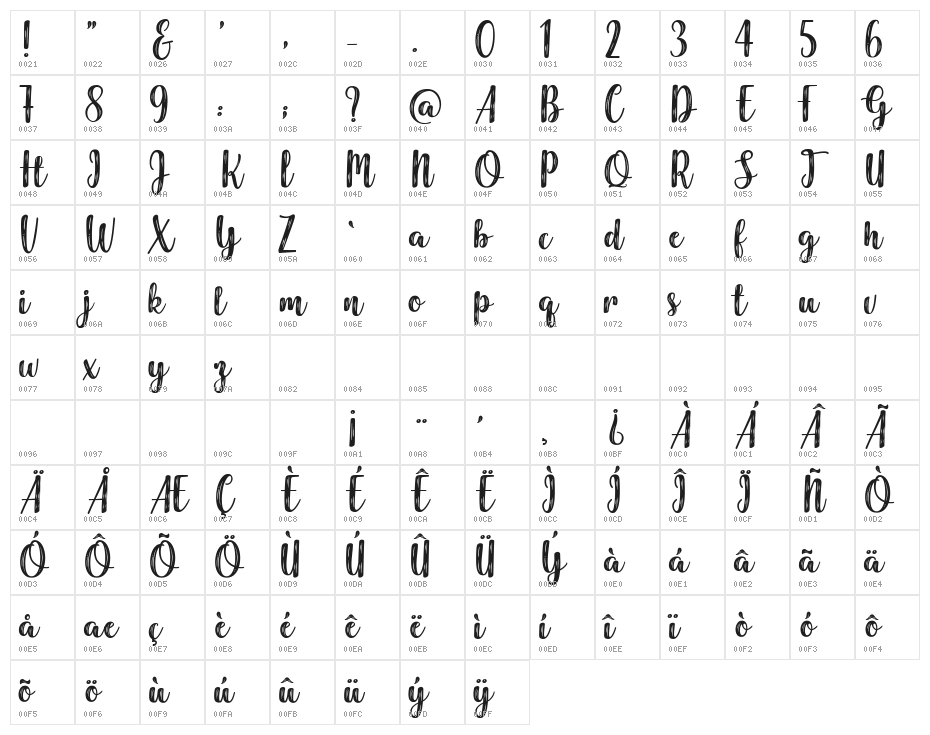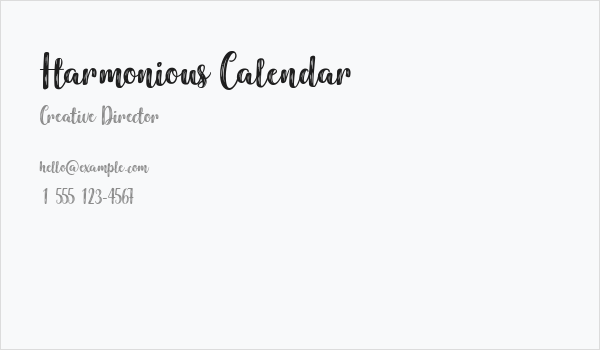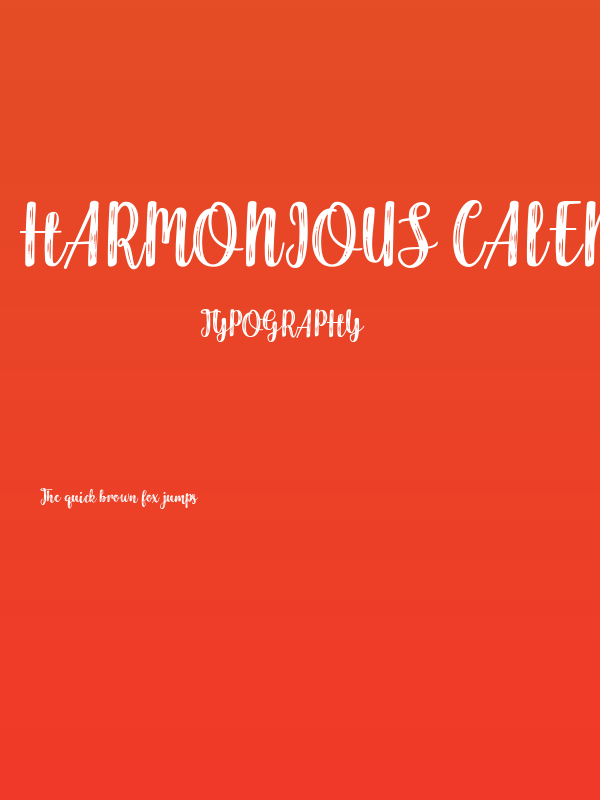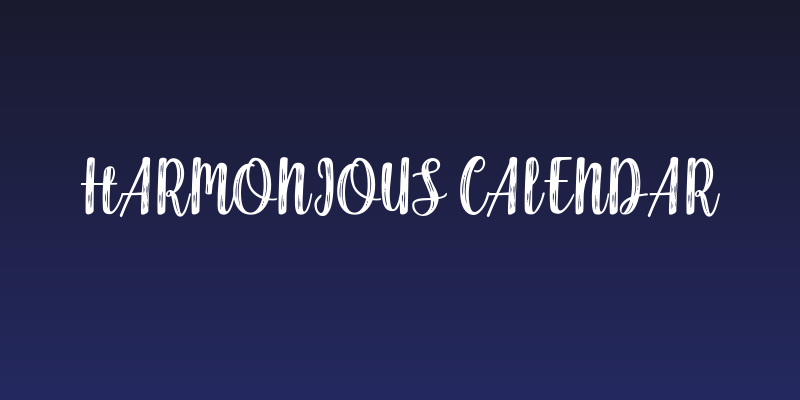
Harmonious Calendar Font
Harmonious Calendar Description
This font features a playful and dynamic script style with a handwritten appearance. The letters are connected, giving it a fluid and continuous look, reminiscent of casual handwriting. The strokes are bold and expressive, with varying thickness that adds a lively rhythm to the text. The uppercase letters are tall and elegant, while the lowercase letters maintain a consistent flow, enhancing readability. The numbers and special characters are designed to match the overall aesthetic, making it versatile for various design needs.
Use CaseLogos, Headlines, Invitations
Proposed ProjectsIdeal for greeting cards, invitations, branding projects, and social media graphics where a personal touch is desired.